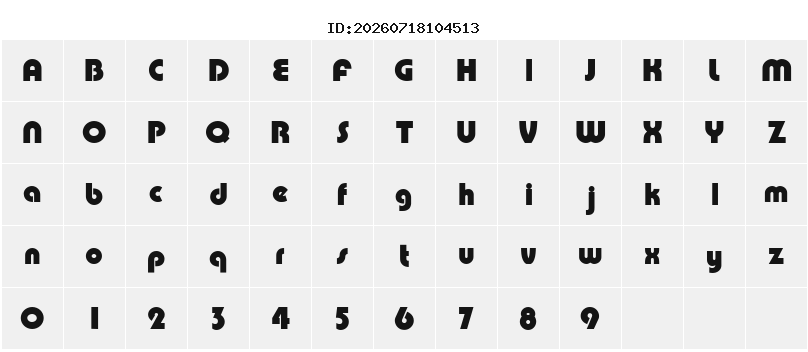
About Celesti Display SSi.ttf
Celesti Display SSi.ttf is a modern, elegant sans-serif font designed for ultimate readability and visual harmony. Perfect for branding, headlines, web design, and print materials.